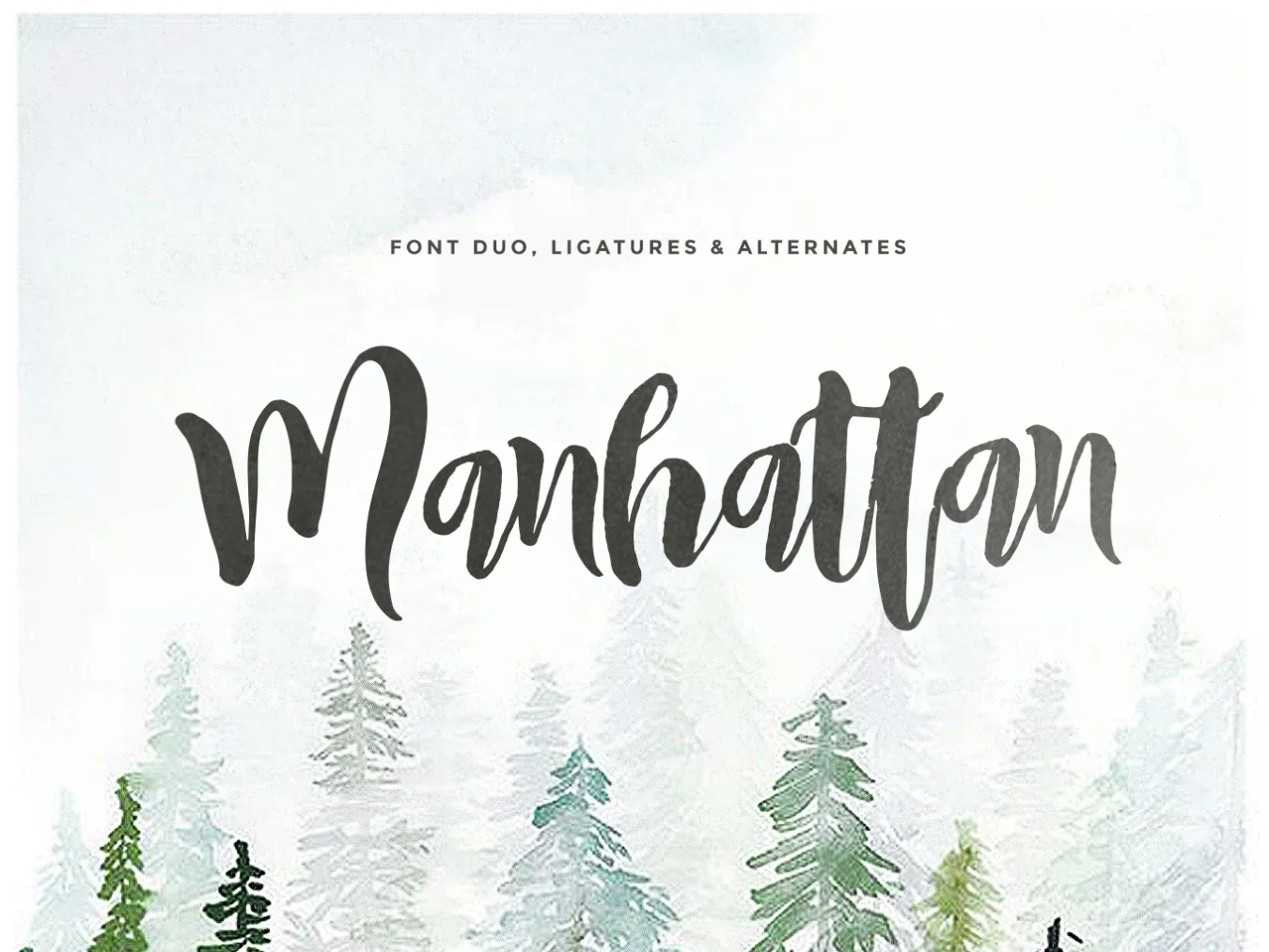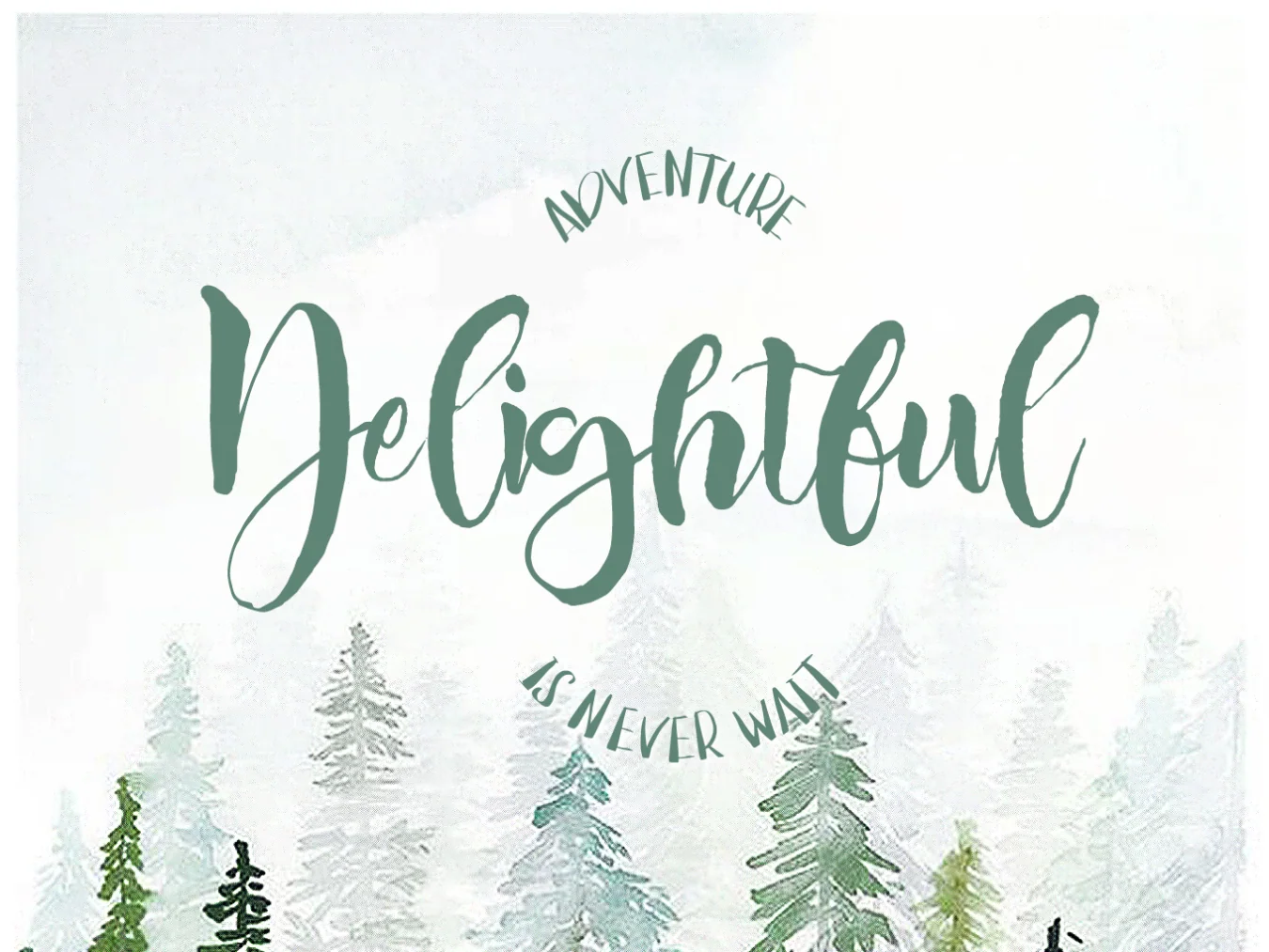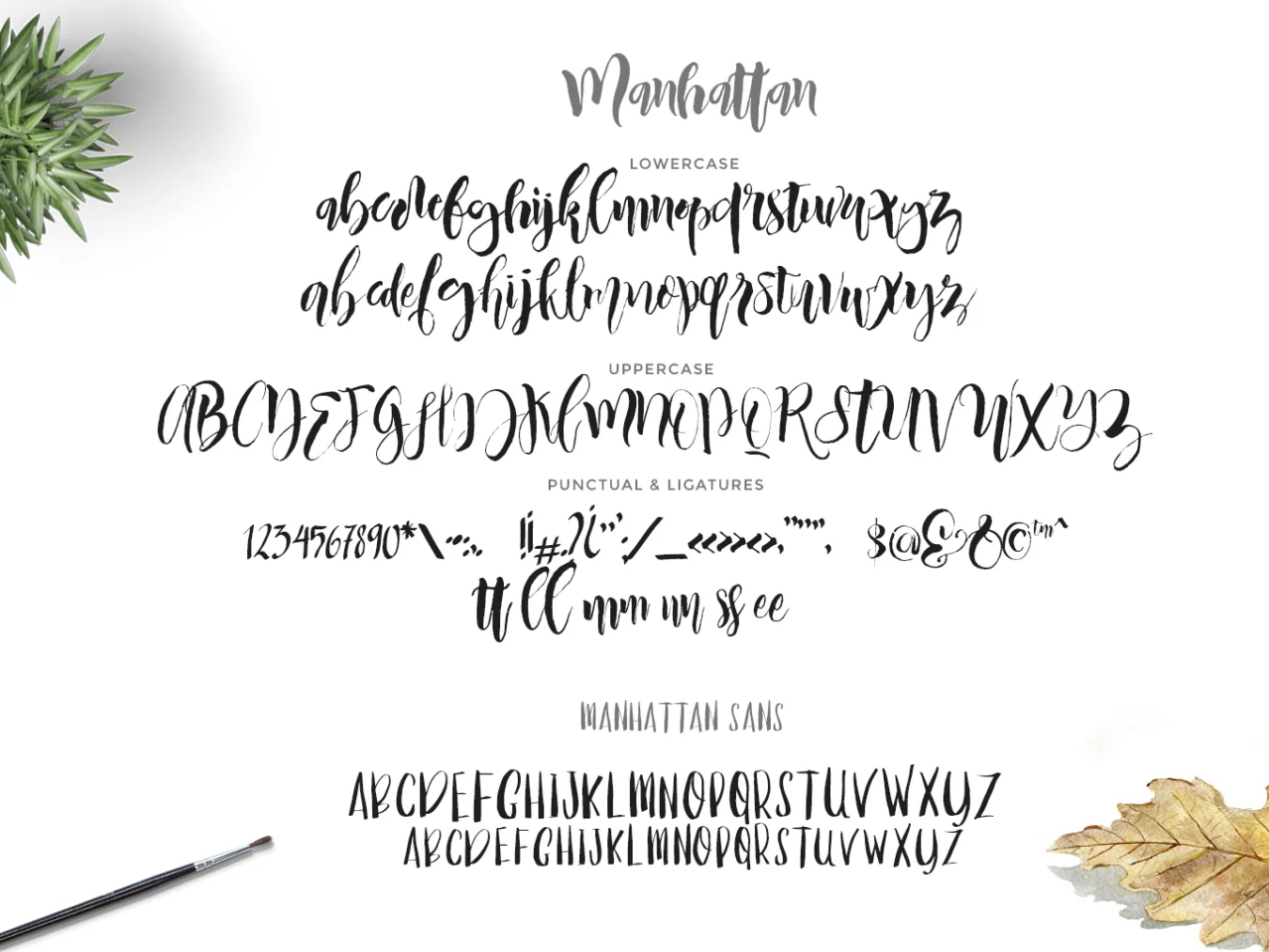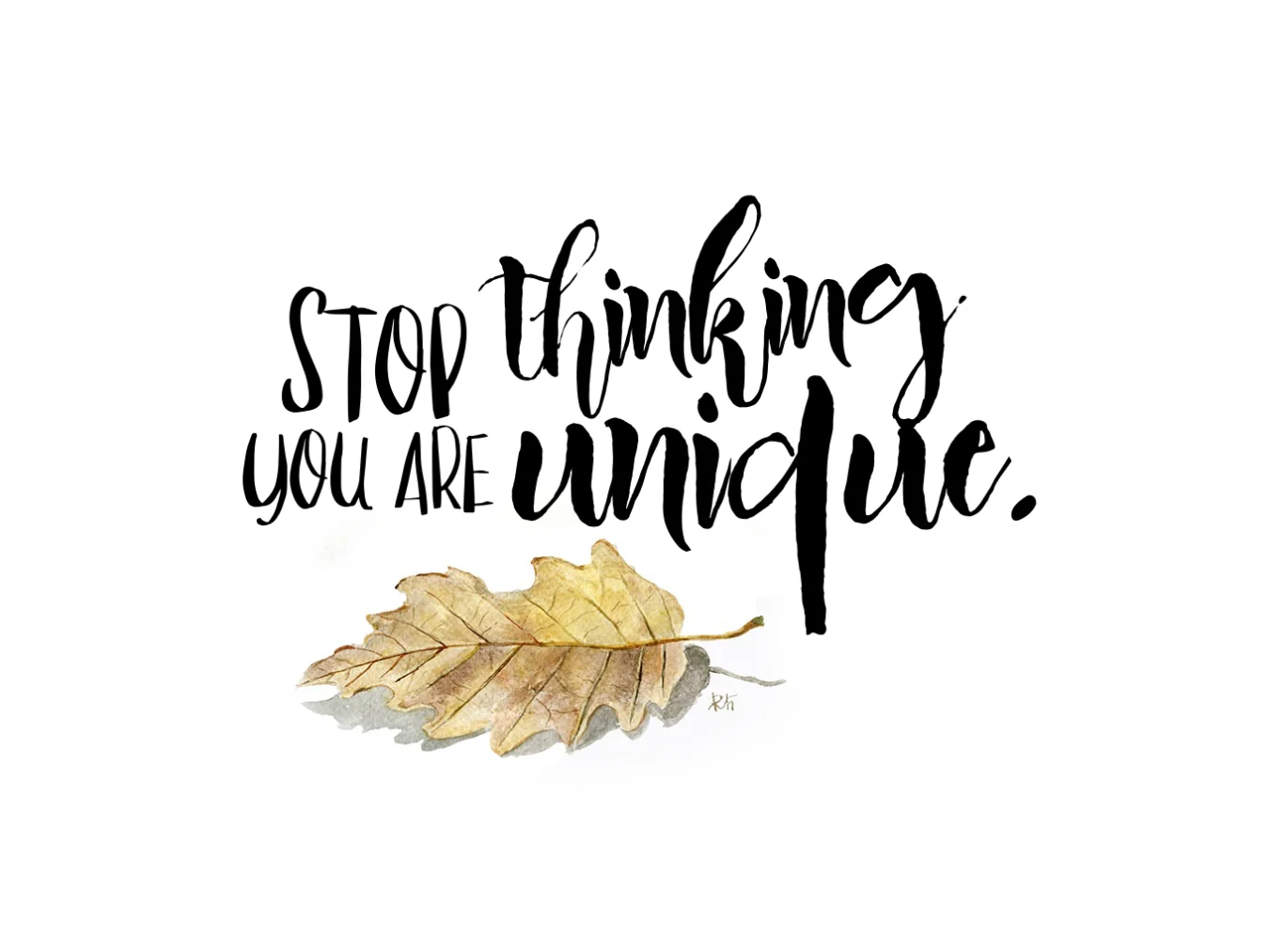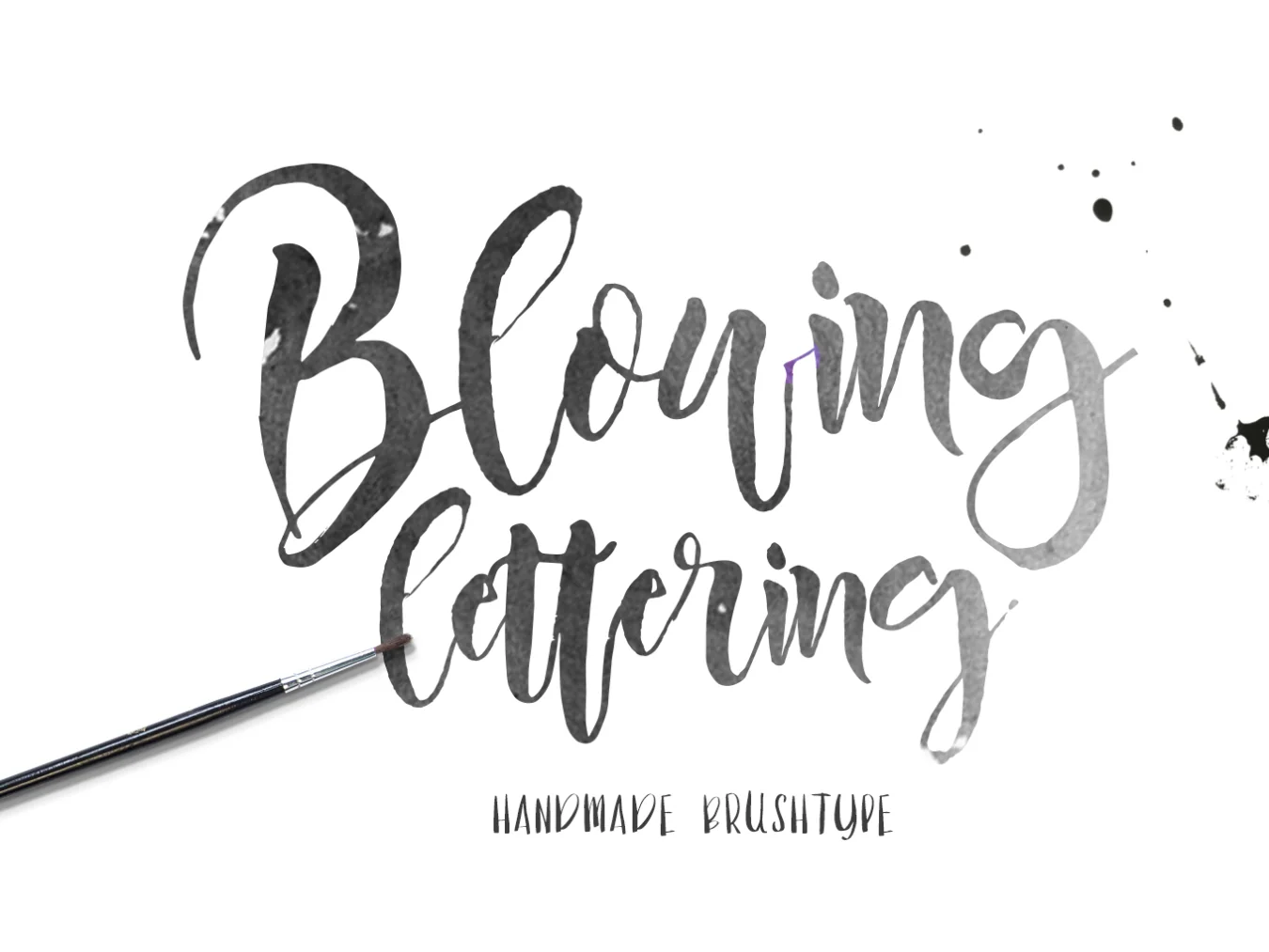
Manhattan Brush Font Duo
Manhattan Brush Typeface Pair
Two styles: Regular and Sans Regular
Brush-style lettering
Includes ligature support
Meet Manhattan Script, a handcrafted dry-brush font with natural texture. It includes Manhattan Script with upper and lowercase letters, numbers, punctuation, alternate capitals, and ligatures for OpenType apps, plus Manhattan Sans, a simple uppercase style for casual designs.